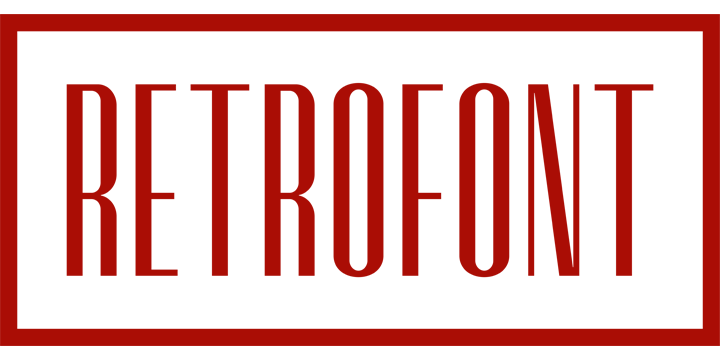
Retrofont is derived from a research work on A. Butti's Hastile typeface; this typeface was never digitized. We looked for a typeface like this, to be used in a work of us, but we did not find anything.
We decided to design Retrofont basing it upon a Hastile version published in a '40 years number of Risorgimento grafico magazine.
Retrofont is more geometrical and is characterized by different proportions than Hastile. More…
Retrofont is designed in two versions: light and regular.